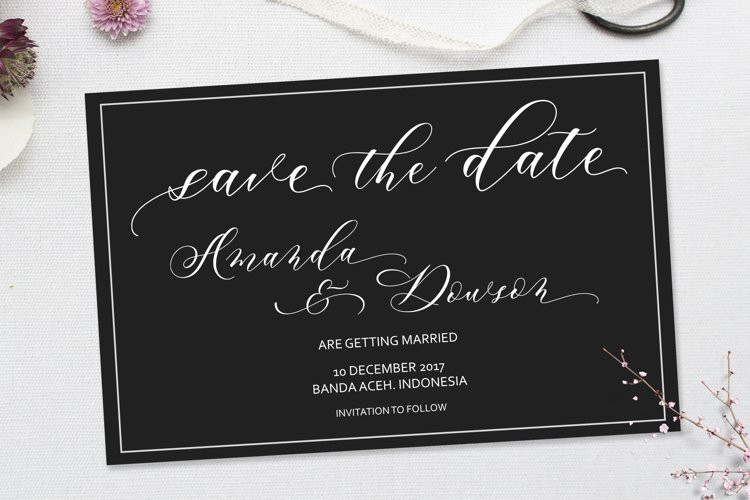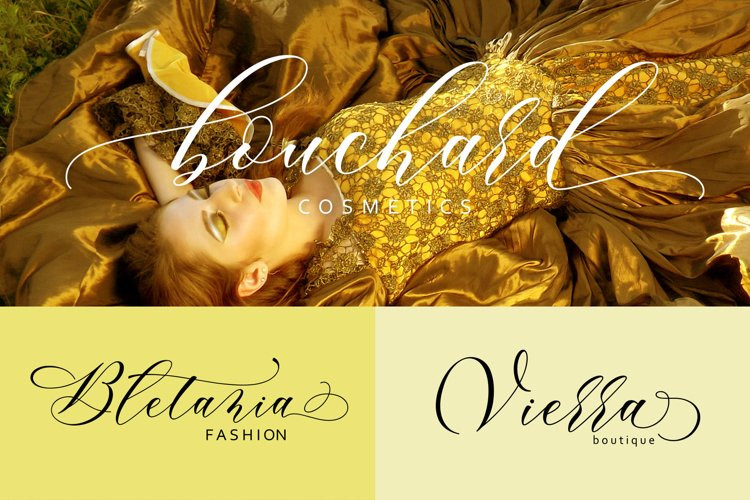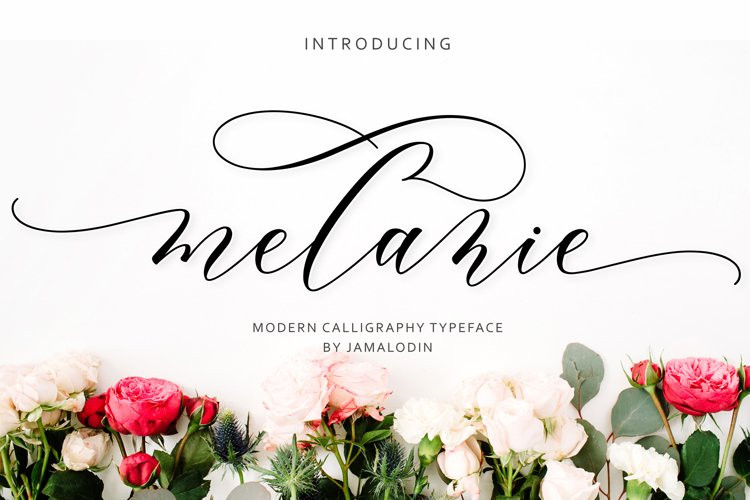
Melanie Font
Melanie FontIntroducing Melanie Script
Melanie Script is modern script font, every single letters has been carefully crafted to make your text looks beautiful. With modern script style this font will perfect for many different project, example: invitations, greeting cards, posters, name card, quotes, blog header, branding, logo, fashion, apparel, letter, stationery and more !
Melanie Script come with 500+ glyphs. The alternative characters were divided into several Open Type features such as Swash, Stylistic Sets, Stylistic Alternates, Contextual Alternates. The Open Type features can be accessed by using Open Type savvy programs such as Adobe Illustrator, Adobe InDesign, Adobe Photoshop Corel Draw X version, And Microsoft Word. And this Font has given PUA unicode (specially coded fonts). so that all the alternate characters can easily be accessed in full by a craftsman or designer.